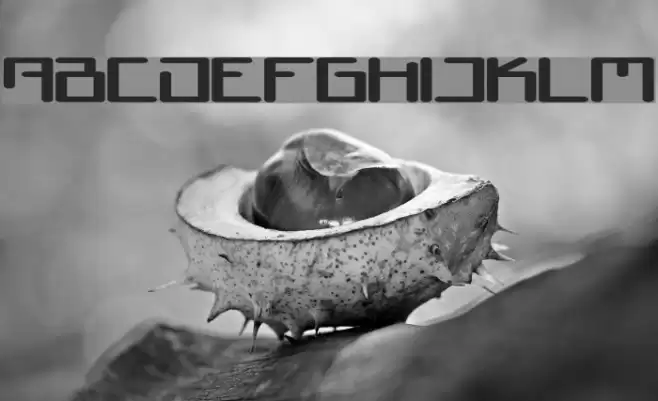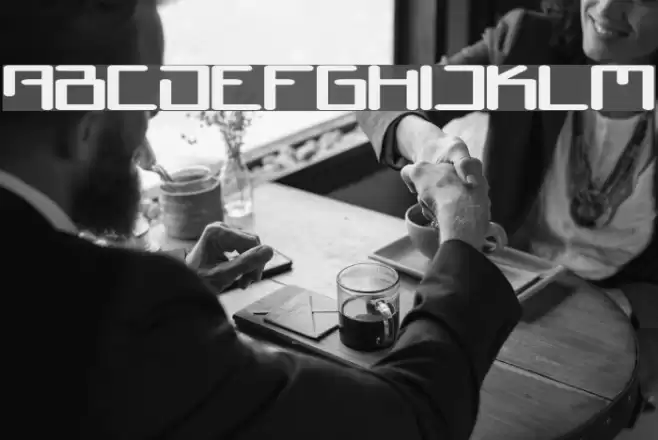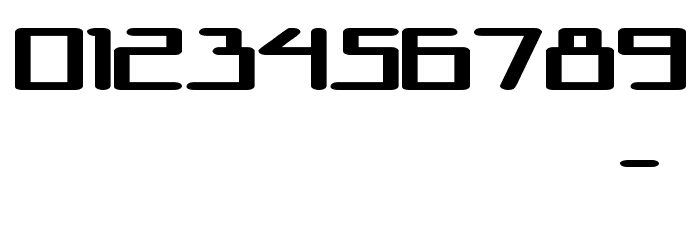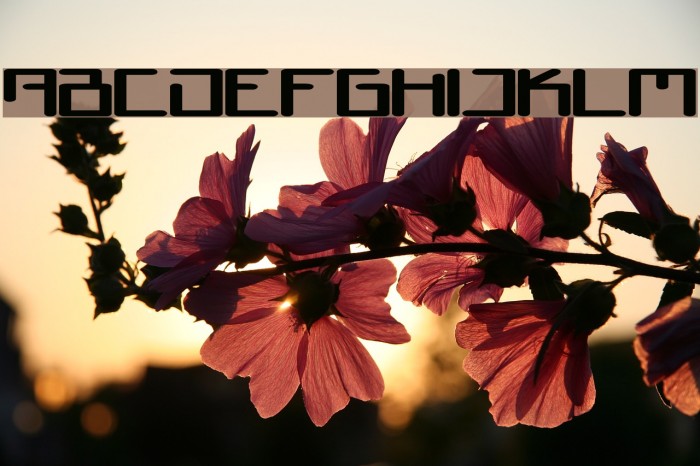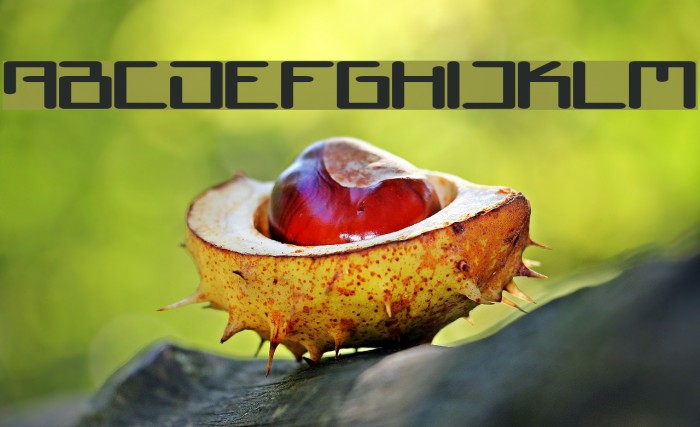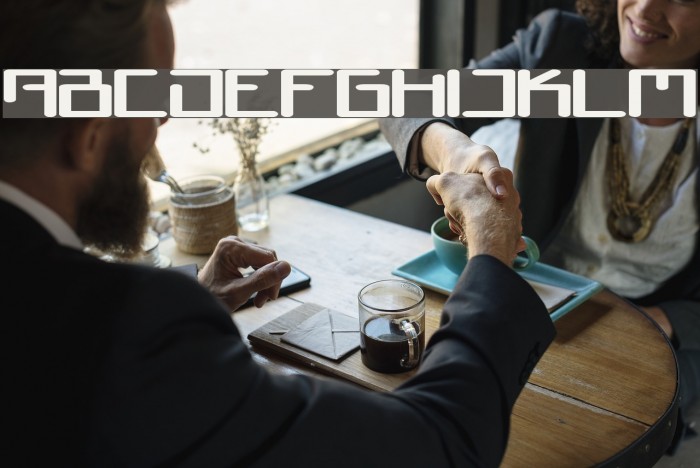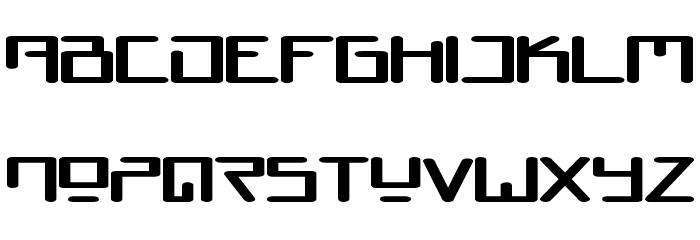
Juno Reactor Font
Juno Reactor Description
This font features a futuristic and geometric design, characterized by its bold and rounded letterforms. The characters exhibit a consistent stroke width, giving it a monospaced appearance. The design is clean and modern, with a focus on readability and a unique style that stands out. The uppercase and lowercase letters maintain a uniform height, enhancing the font's cohesive look. The numerals and special characters are designed to match the overall aesthetic, making it suitable for digital and print media.
A futuristic, geometric font with bold, rounded letterforms from Uncategorized fonts.
- Proposed Projects: Ideal for technology branding, sci-fi themed projects, digital interfaces, and modern advertising campaigns.
- Use Case: Headlines, Logos, Digital interfaces